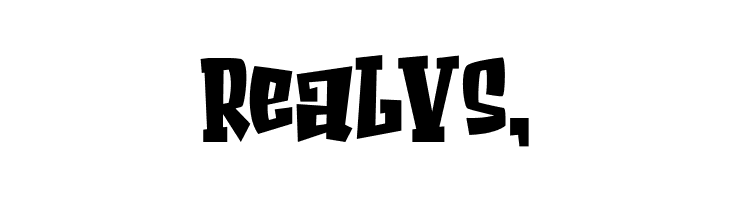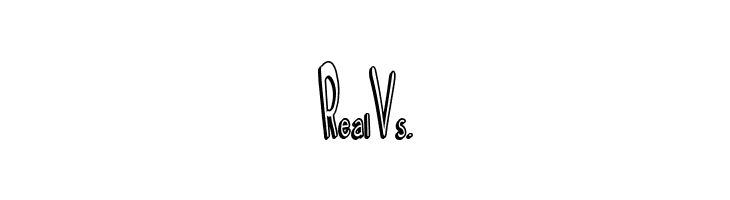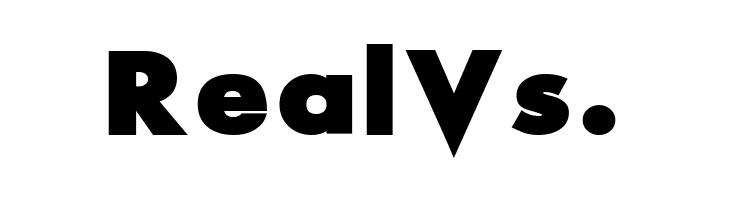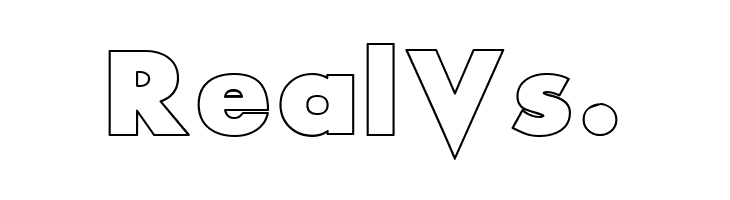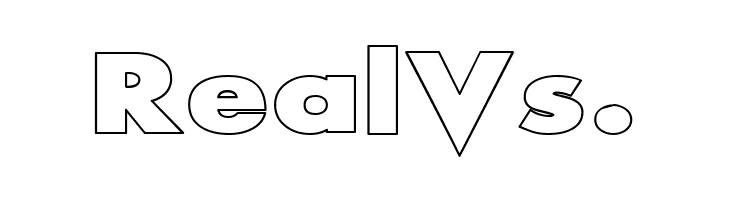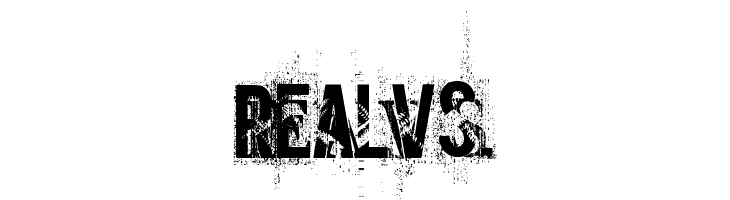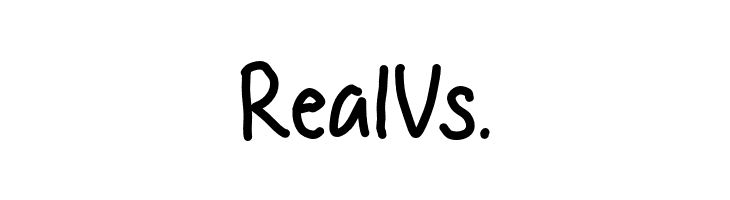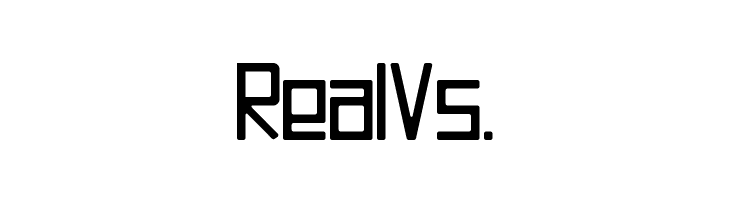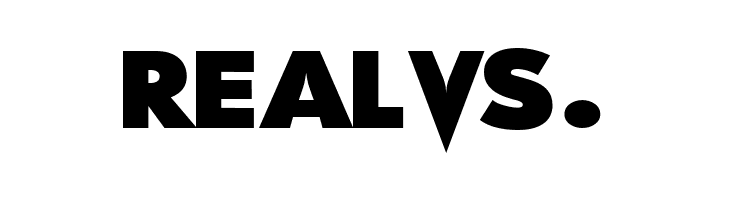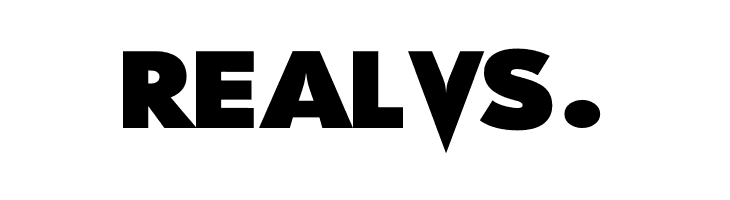
A bold, distressed font with a scratched, textured appearance.
A bold, jagged font with a scratch-like, distressed appearance.
A playful, hand-drawn font with a sketch-like, whimsical style.
A playful, hand-drawn font with scratchy, textured lines.
A playful, sketch-like font with a hand-drawn, energetic style.
A playful, hand-drawn font with a casual and informal style.
A casual, handwritten font with uneven strokes and a playful, personal touch.
A bold, handwritten font with a dynamic and informal style.
A dynamic, hand-drawn font with a graffiti-like, expressive style.
A bold, graffiti-style font with dynamic and expressive strokes.
A jagged, hand-drawn font with an edgy, graffiti-like style.
A playful, hand-drawn font with bold outlines and a whimsical style.
A playful, hand-drawn style font with irregular, textured strokes.
A playful, hand-drawn font with quirky, artistic flourishes.
A whimsical, hand-drawn font with playful, irregular characters.
A bold, decorative font with whimsical and artistic strokes.
A playful, handwritten font with thin, irregular strokes and a whimsical style.
A bold, sans-serif font with strong geometric shapes and high readability.
A decorative Halloween-themed font featuring cartoonish monster illustrations.
A bold, brush-stroke font with high contrast and dynamic movement.
A bold, geometric font with strong, modern letterforms.
A bold, outlined font with a modern and geometric style.
A spooky, ghostly font with fluid, irregular strokes and a haunting aesthetic.